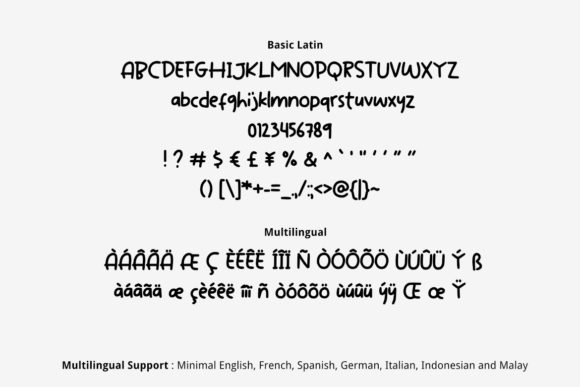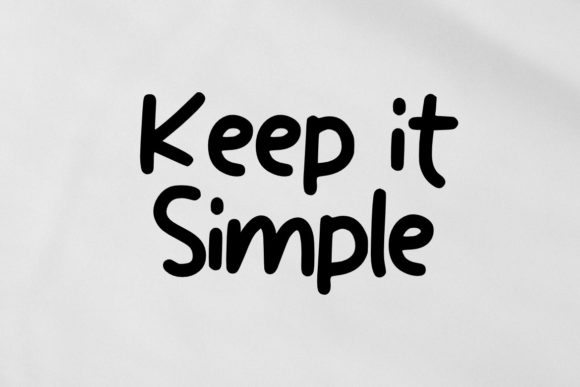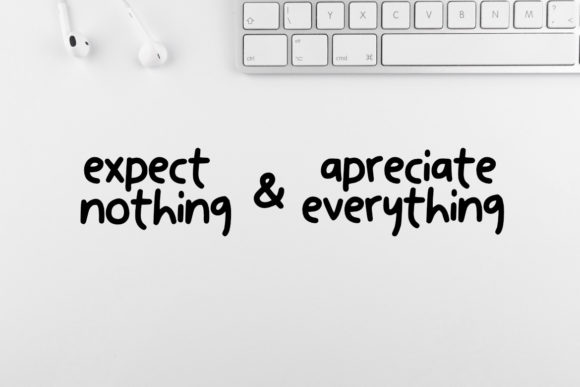
Introduction to Lychee Font
Lychee is a simple and modern sans serif font suitable for quotes, logos, headings, titles, and many more.
Key Features of Lychee Font